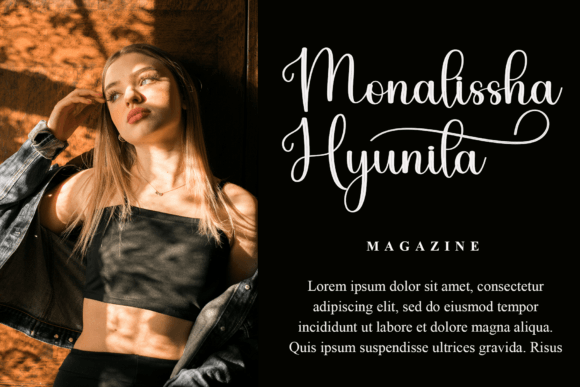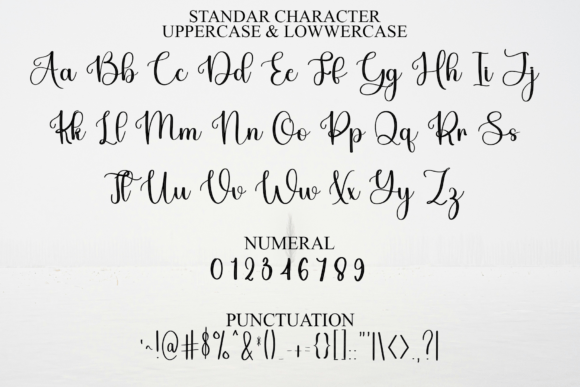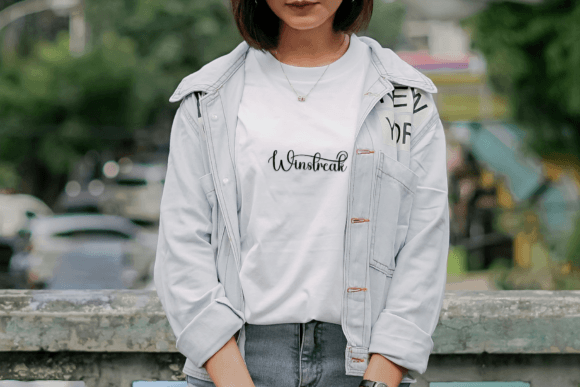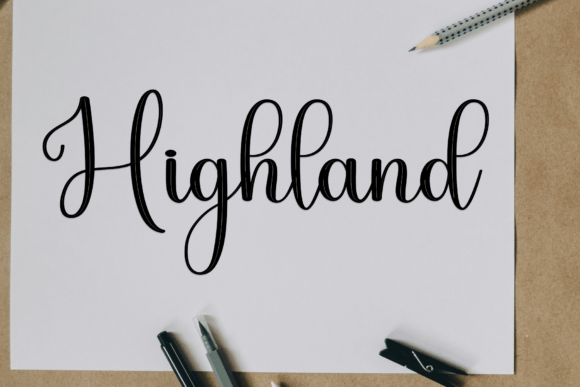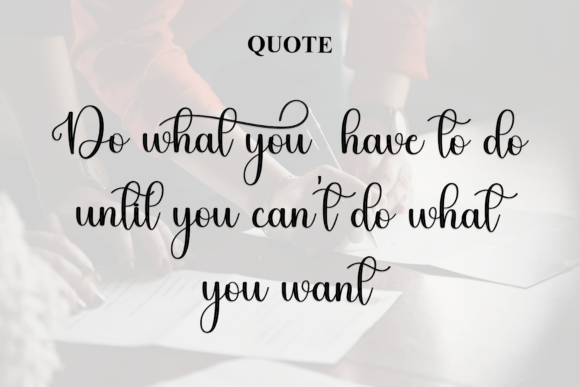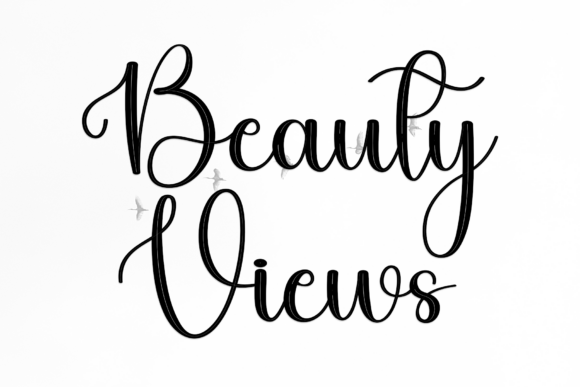
Gantleman Font: Elevate Your Designs with Elegance and Sophistication
In the world of typography, a well-crafted font can make all the difference in elevating your designs to new heights. Introducing Gantleman, an exquisite handwritten font that is sure to become a true favorite among designers and crafters alike. With its classy calligraphic influences and contemporary feel, Gantleman is the perfect choice for those seeking to add a touch of elegance and sophistication to their projects.
The Art of Handwritten Typography
Gantleman is a masterfully designed handwritten font that boasts a unique blend of traditional calligraphy and modern flair. Its intricate strokes and delicate letterforms evoke a sense of luxury and refinement, making it ideal for high-end designs, branding, and marketing materials. Whether you’re working on a wedding invitation, a fashion brochure, or a business card, Gantleman is sure to impress.
What Sets Gantleman Apart
So, what makes Gantleman stand out from the crowd? Here are just a few features that set this font apart:
- Classy Calligraphic Influences: Gantleman’s roots in traditional calligraphy are evident in its elegant letterforms and flowing strokes.
- Contemporary and Fresh: Despite its classic influences, Gantleman feels modern and fresh, making it perfect for designers looking for a unique edge.
- Exquisite Handwritten Details: Each letterform has been carefully crafted to showcase the beauty of handwritten typography.
- Versatile: Gantleman is suitable for a wide range of design applications, from print materials to digital projects.
Why Choose Gantleman?
With so many fonts available, why choose Gantleman? Here are just a few reasons why designers and crafters are falling in love with this exquisite font:
- Elegance and Sophistication: Gantleman adds a touch of luxury and refinement to any design, making it perfect for high-end projects.
- Unique and Memorable: Gantleman’s distinctive letterforms and flowing strokes make it a standout in any design.
- Easy to Read: Despite its intricate details, Gantleman is surprisingly easy to read, making it suitable for body text and headlines.
- Highly Versatile: Gantleman can be used in a wide range of design applications, from fashion and beauty to wedding and event planning.
How to Use Gantleman in Your Designs
Ready to fall in love with Gantleman? Here are a few tips on how to incorporate this exquisite font into your designs:
- Pair it with Neutrals: Gantleman pairs beautifully with neutral colors like black, white, and gray, making it perfect for designs that require a touch of elegance.
- Mix it with Bold Fonts: Combine Gantleman with bold fonts for a striking contrast that adds visual interest to your design.
- Use it for Headlines and Titles: Gantleman is perfect for headlines and titles, where its elegant letterforms can take center stage.
- Experiment with Colors: Don’t be afraid to experiment with different colors and textures to add depth and visual interest to your design.
In conclusion, Gantleman is an exquisite handwritten font that is sure to become a true favorite among designers and crafters. With its classy calligraphic influences, contemporary feel, and exquisite handwritten details, Gantleman is the perfect choice for those seeking to add a touch of elegance and sophistication to their projects. Whether you’re working on a high-end design, a branding project, or a marketing campaign, Gantleman is sure to impress. So why wait? Fall in love with Gantleman and bring your projects to the highest levels!